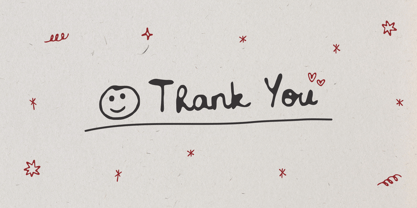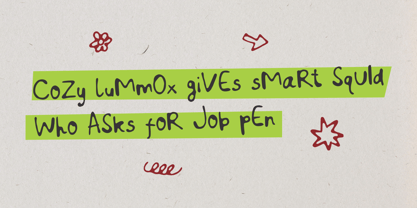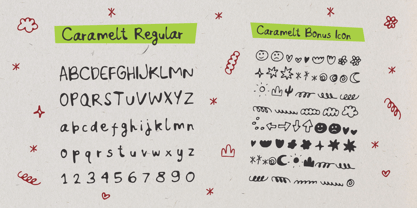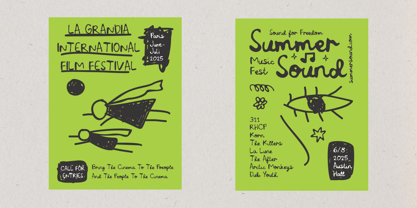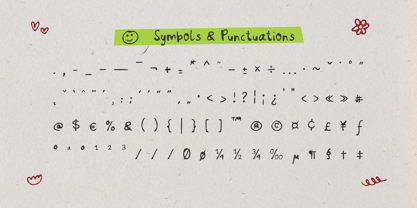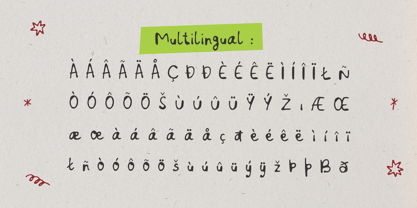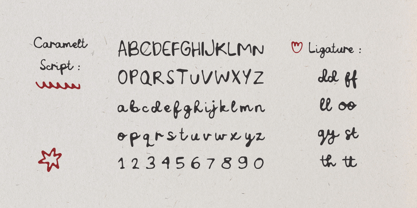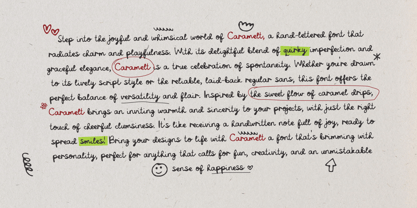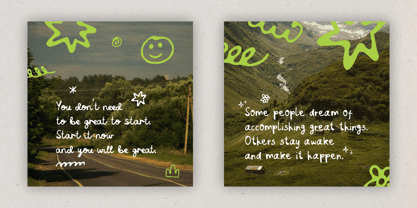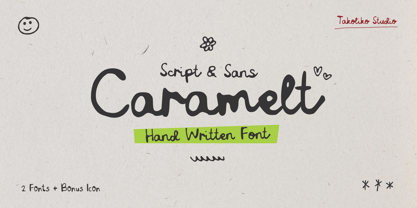
Caramelt
by takoliko
The Caramelt Font Family was designed by Deni Hidayat and published by takoliko. Caramelt contains 3 styles and family package options. More about this family
Step into the joyful and whimsical world of Caramelt, a hand-lettered font that radiates charm and playfulness. With its delightful blend of quirky imperfection and graceful elegance, Caramelt is a true celebration of spontaneity. Whether you're drawn to its lively script style or the reliable, laid-back regular sans, this font offers the perfect balance of versatility and flair. Inspired by the sweet flow of caramel drips, Caramelt brings an inviting warmth and sincerity to your projects, with just the right touch of cheerful clumsiness. It's like receiving a handwritten note full of joy, ready to spread smiles! Bring your designs to life with Caramelt a font that's brimming with personality, perfect for anything that calls for fun, creativity, and an unmistakable sense of happiness.